12 Stunning Elegant Serif Fonts for Luxe Designs in 2026
Elegant serif fonts are built for designers who need refined typography with visible contrast, graceful curves, and a premium editorial mood. This collection focuses on fonts for logos, fashion branding, beauty packaging, wedding stationery, magazine covers, and polished display headlines.
High-Contrast Editorial Elegant Serif Fonts
These elegant serif fonts use sharp contrast, clean curves, and polished proportions for fashion editorials, magazine covers, beauty branding, and refined logo systems.
Astrid Font
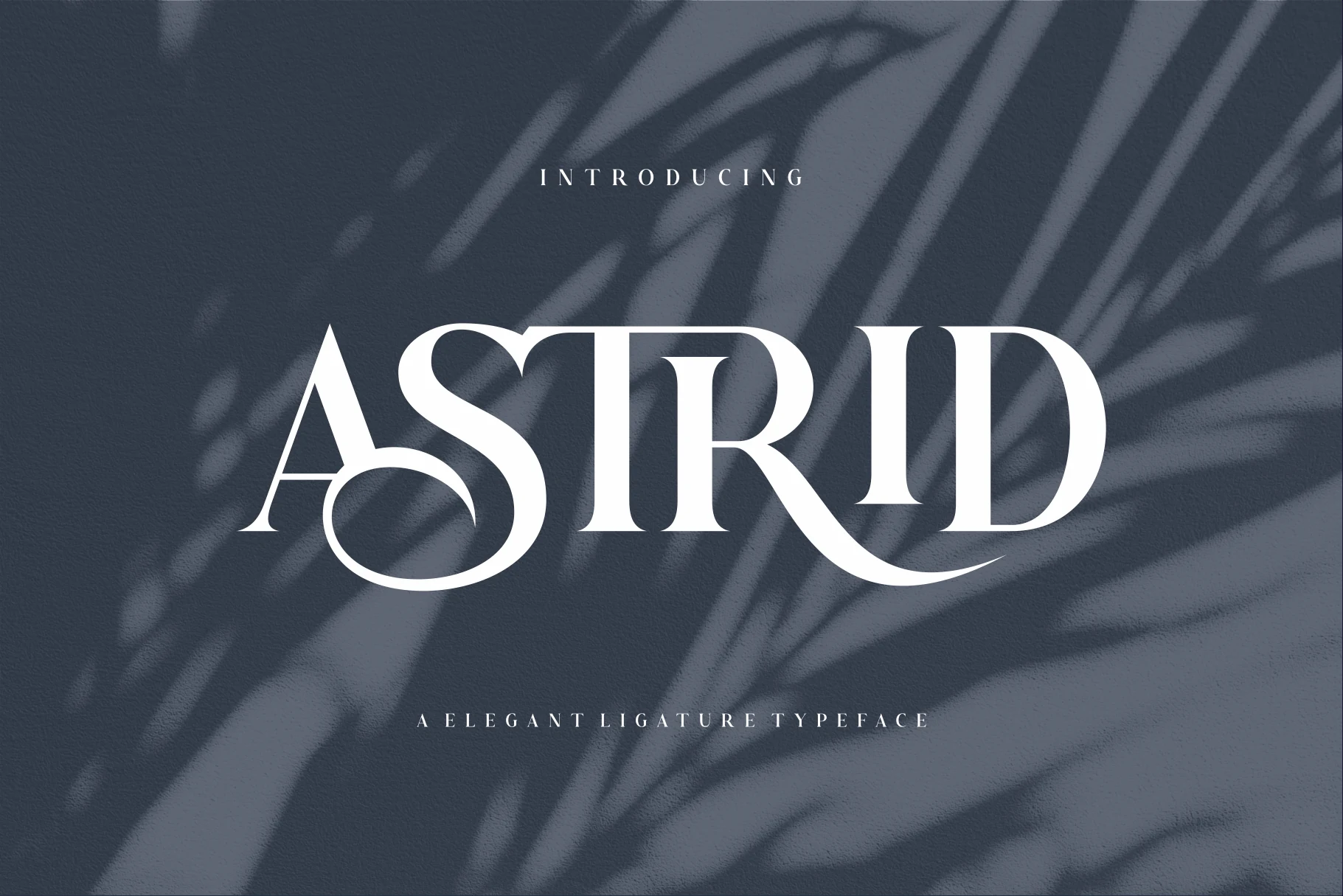
Best For: logos, editorial designs, luxury designs, fashion branding
Astrid Font has a dramatic display-serif shape, with high contrast strokes, sharp wedge serifs, and broad sweeping curves that pull the eye across a title. Its balanced proportions keep the wordmark readable, while the ornamental flow gives Elegant Serif Fonts a more expressive, fashion-led presence.
Use it where the type carries the hierarchy: logos, magazine covers, beauty packaging, or short editorial headlines. The thin hairlines need enough contrast against the background, and the decorative curves work best with restrained spacing so the letterforms feel connected without becoming crowded.
Rovale Font
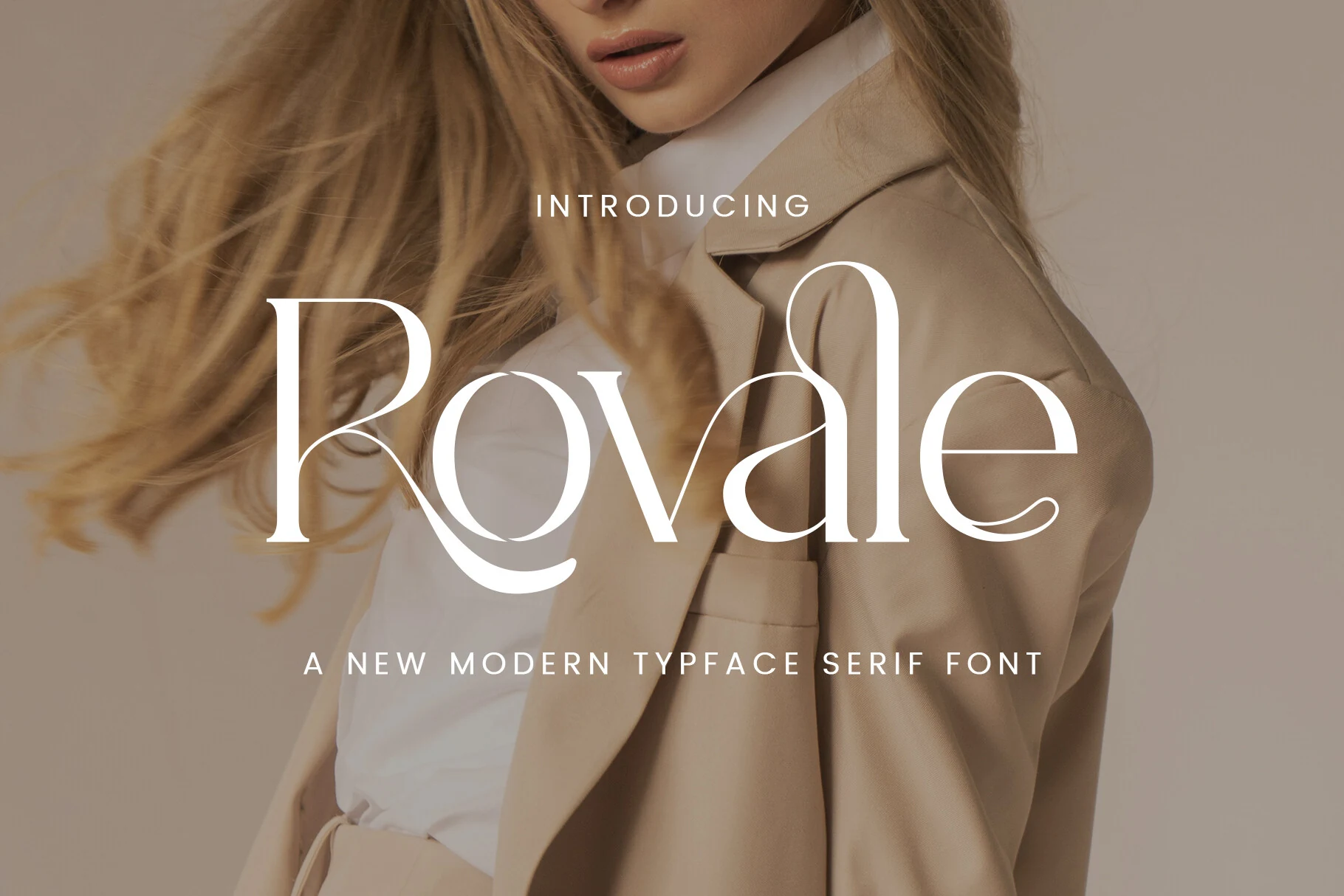
Best For: logos, beauty branding, magazine covers, wedding designs
Rovale Font leans into a fashion-editorial mood, with crisp contrast, long tapered strokes, and looping curves that soften the classic serif structure. The capital R and the airy lowercase forms give Elegant Serif Fonts a more glamorous rhythm, balancing drama with clean readability.
It works best when the type is doing the styling itself, especially in logos, beauty packaging, magazine covers, and wedding pieces. Keep the copy short and leave enough space around the swashed joins, because the thin connections and extended terminals stay sharp in open layouts rather than dense text.
Wolmer Font
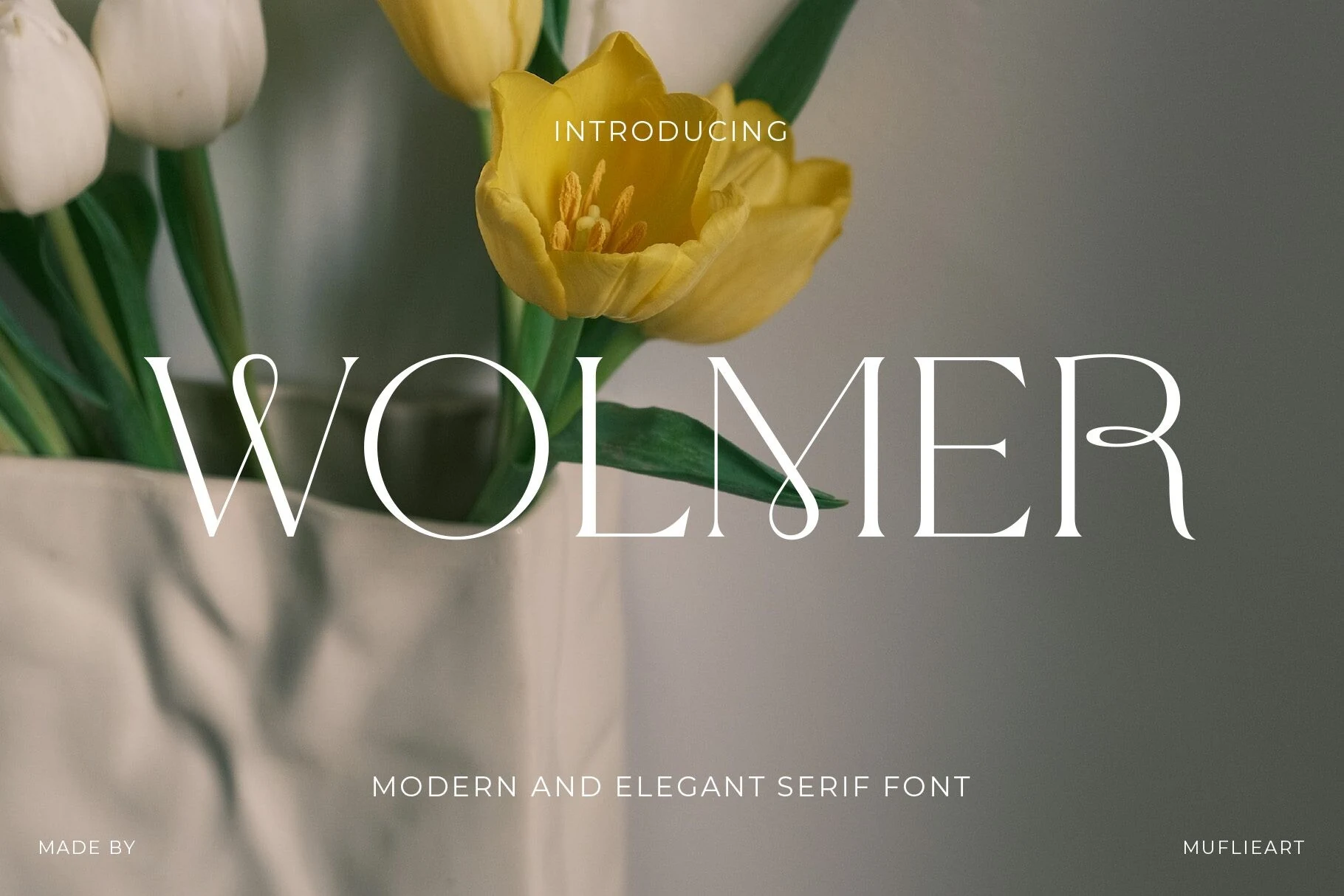
Best For: logos, editorial designs, beauty branding, luxury designs
Wolmer Font pares the serif down to a sleek editorial silhouette, then adds character through teardrop terminal loops, narrow high-contrast strokes, and subtle crossbar connections. Those details give Elegant Serif Fonts a cleaner, more sculpted look, with enough softness to keep large titles feeling refined rather than severe.
It is strongest in logos, mastheads, and beauty-led branding where the letterforms can sit at scale and carry the composition. Leave generous spacing around the wordmark and pair it with quiet secondary text, since the fine hairlines and looped joins read best when the layout stays airy and contrast does the work.
Aveloire Font
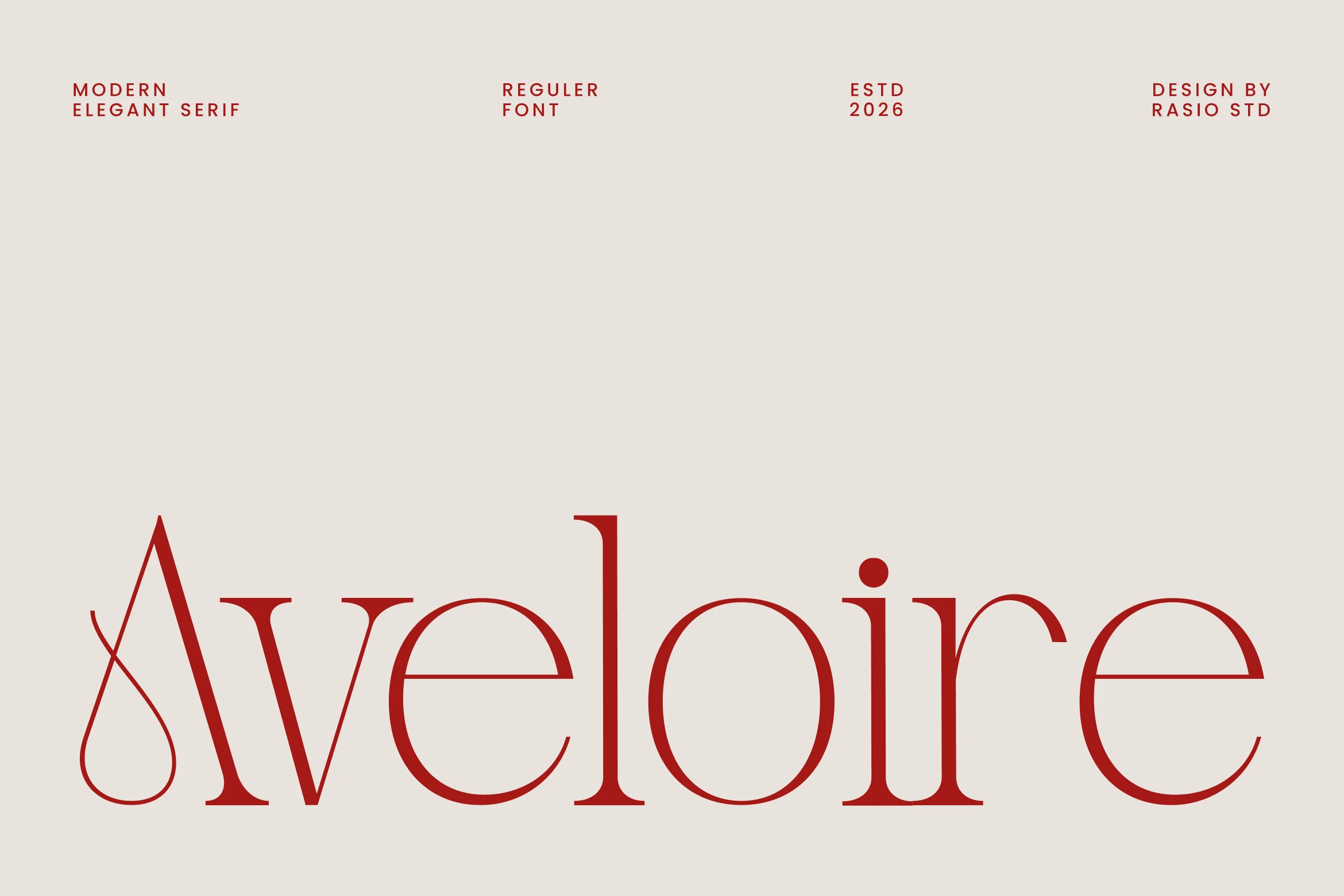
Best For: editorial designs, fashion branding, magazine covers, luxury designs
Aveloire Font has a poised high-contrast serif structure, with slender stems, rounded bowls, and a teardrop-like entry detail on the A that adds quiet distinction. The refined proportions and clean rhythm give Elegant Serif Fonts a polished editorial voice, balancing softness and precision without becoming overly ornate.
It suits layouts where typography needs to look composed and premium, especially magazine covers, fashion branding, and luxury marketing pieces. The delicate terminals read best at display sizes, so keep supporting text restrained and give the wordmark enough space for its curves and contrast to stay crisp.
De Floria Font
Best For: logos, branding, editorial designs, luxury designs
De Floria Font has a calm, polished serif voice with soft bracketed serifs, rounded bowls, and a gently nostalgic rhythm. The tall ascenders and slightly calligraphic touches in letters like f and a keep it graceful without feeling fussy, which gives Elegant Serif Fonts a more understated premium character.
It works especially well when you want the type to feel expensive but approachable, from logos to refined editorial layouts. The shapes stay clear at display size, and its moderate contrast makes it easy to pair with minimal supporting text, so clean spacing and a restrained hierarchy will let the vintage-modern tone come through.
Swash & Ornamental Elegant Serif Fonts
These elegant serif fonts lean on ligatures, swashes, and ornamental terminals for expressive logos, wedding stationery, packaging, invitations, and statement headlines.
Bezoria – Elegant Serif Font
Best For: logos, wedding designs, editorial designs, high-end designs
Bezoria has a poised display rhythm, with crisp contrast, rounded bowls, and gently flared serifs that finish in elegant sweeps. The oversized capital B and the extended tail on the final a give the wordmark a graceful signature feel, so Elegant Serif Fonts read softer and more expressive here.
It suits layouts where the typography carries the mood, especially logos, wedding stationery, and refined editorial headings. Use it at larger sizes and keep the spacing slightly open, which helps the curved joins and long terminals stay clear instead of feeling crowded in tighter compositions.
It has the strongest impact in wordmarks, beauty packaging, and cover lines where the connecting strokes can stay visible. Use it as the main display face and keep supporting type restrained; the long baseline swashes need open space below the line so they read as deliberate detail rather than visual noise.
Conclusion
Choose high-contrast editorial styles when you need a clean luxury voice for covers, packaging, and brand systems. Pick swash-heavy serif fonts when the wordmark needs more movement, ornament, or a couture-style signature effect.